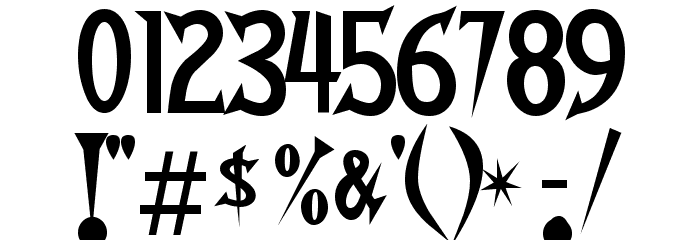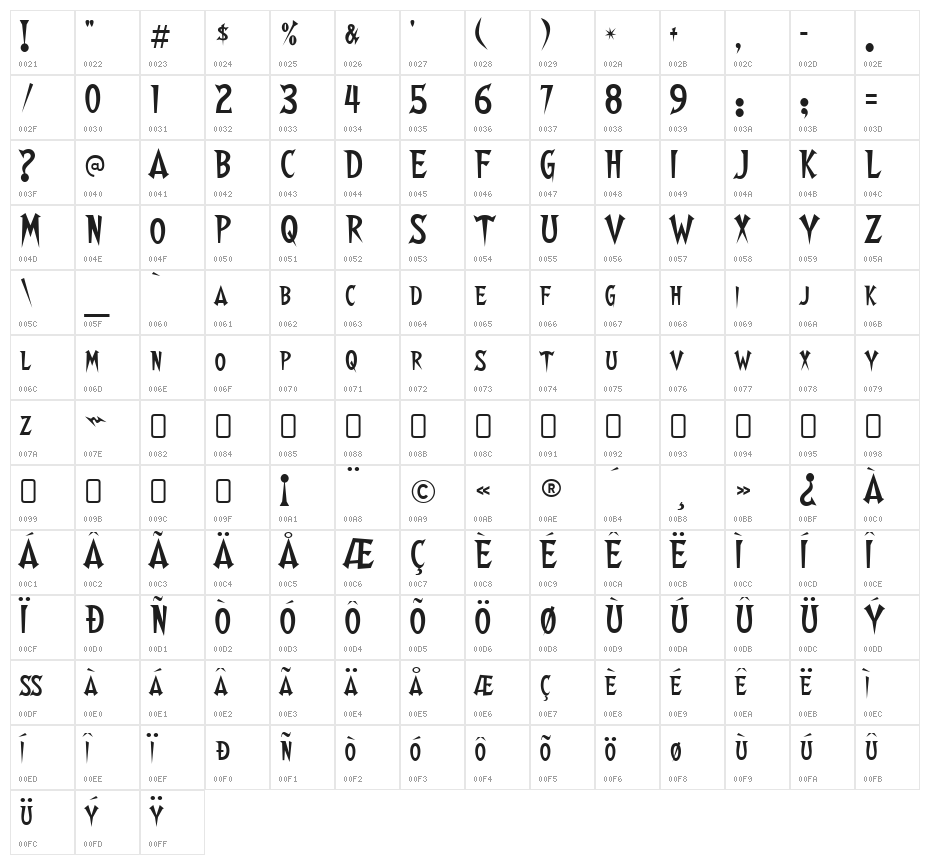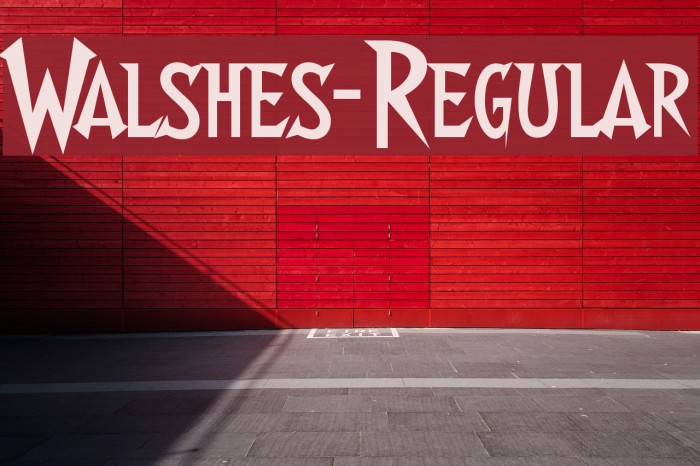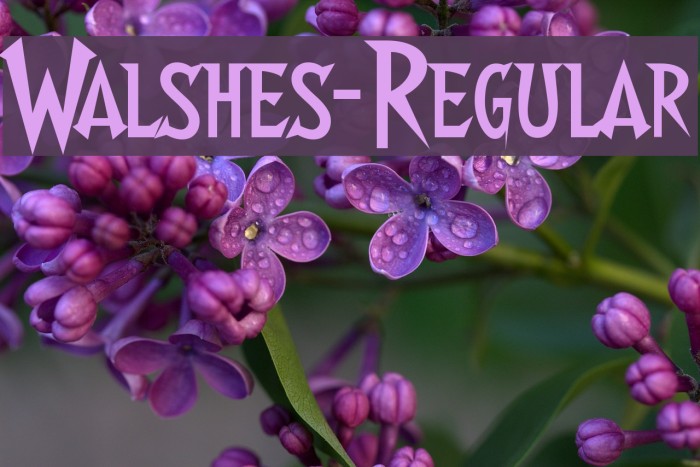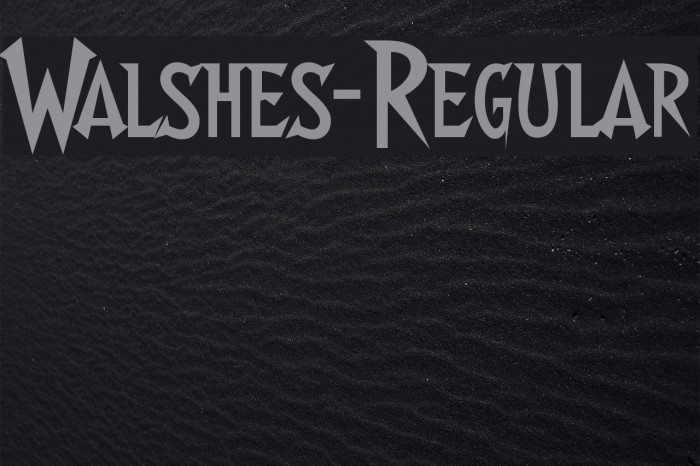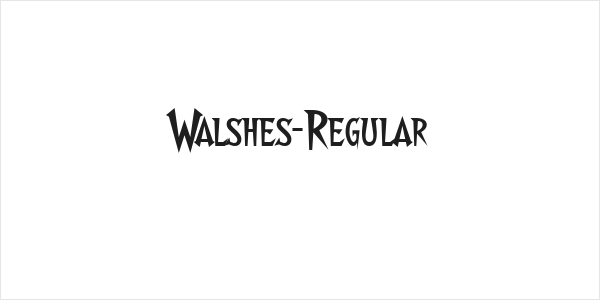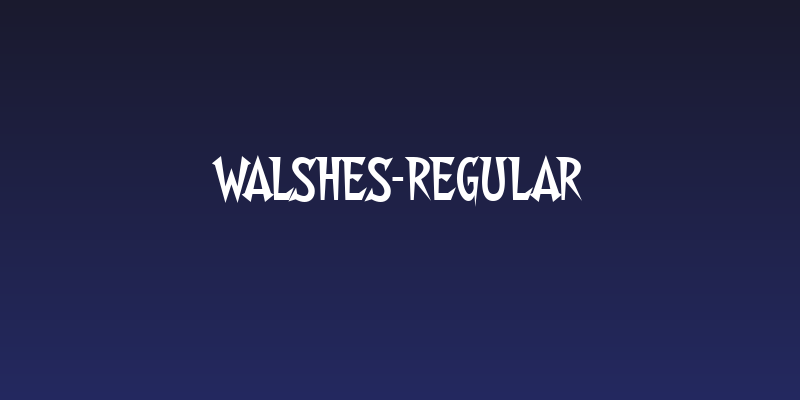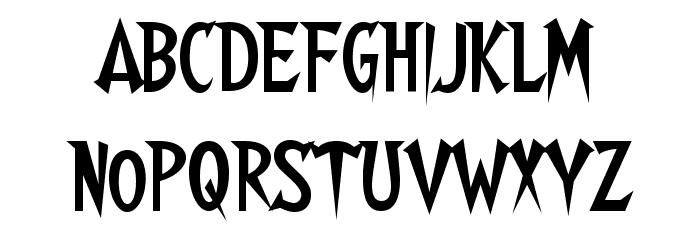
Walshes-Regular Font
Walshes-Regular Description
This font features a bold and dynamic design with sharp, angular edges that give it a striking and aggressive appearance. The characters are highly stylized, with exaggerated serifs and pointed terminals that create a sense of movement and energy. The uppercase and lowercase letters maintain a consistent style, while the numerals and special characters complement the overall aesthetic. This font's unique design makes it stand out, offering a dramatic flair suitable for attention-grabbing projects.
| Proposed Projects | Ideal for posters, album covers, video game titles, and branding that requires a bold, edgy look. |